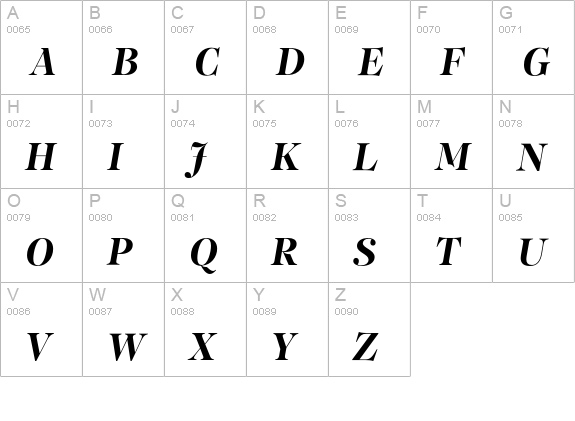
PFRegalDisplayPro-BoldItalic Font Details
PFRegalDisplayPro-BoldItalic is a striking and elegant font that exudes confidence and sophistication. With its bold and italic design, this typeface commands attention and adds a touch of luxury to any project. The strong, clean lines and distinct curves make it perfect for headlines, titles, and branding materials. Whether you're designing a high-end magazine spread or creating a sleek website, PFRegalDisplayPro-BoldItalic is sure to make a statement. The best part? This premium font is available for free download at FontsMarket.com. That's right, you can elevate your designs with this exquisite typeface without breaking the bank. Don't miss out on the opportunity to add PFRegalDisplayPro-BoldItalic to your font library today.